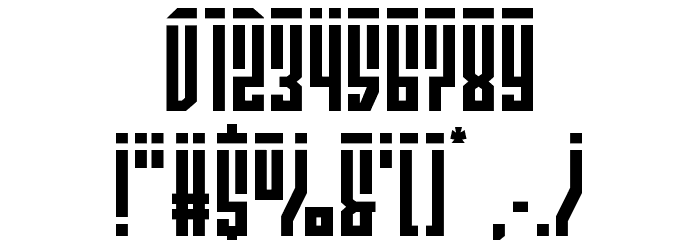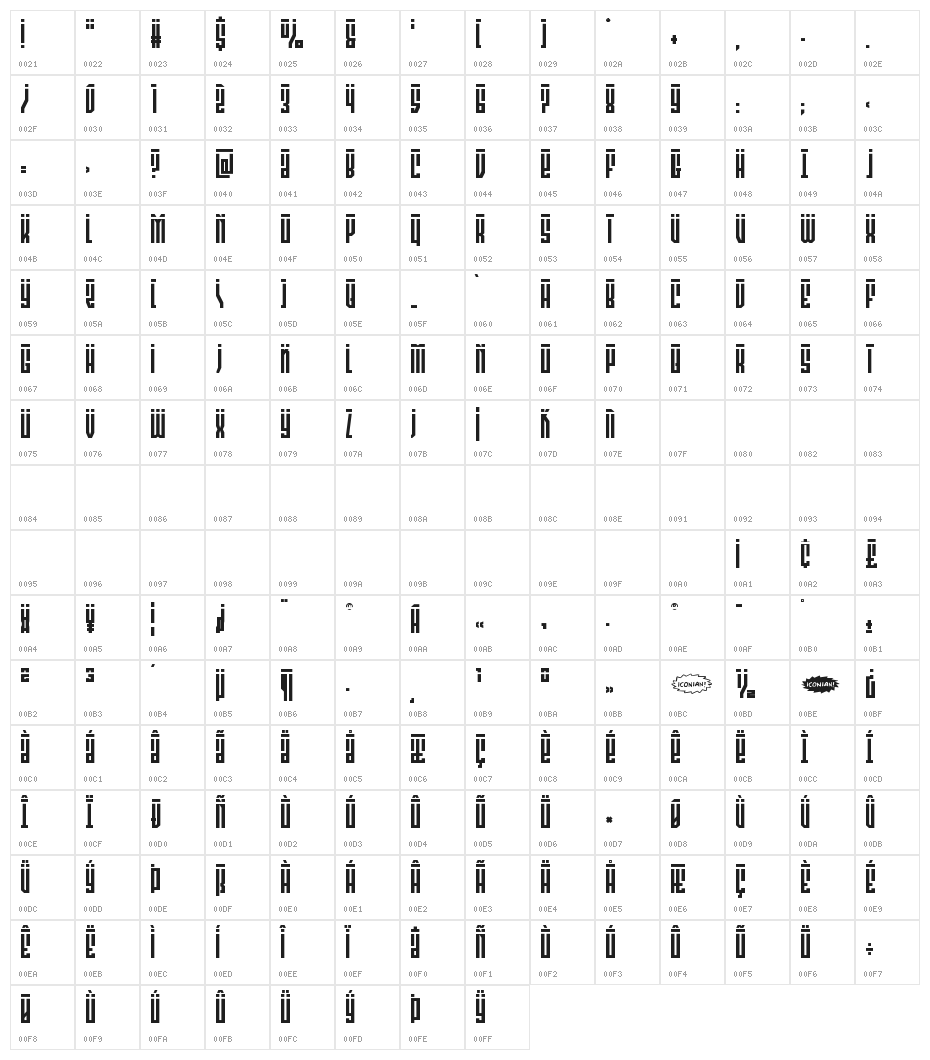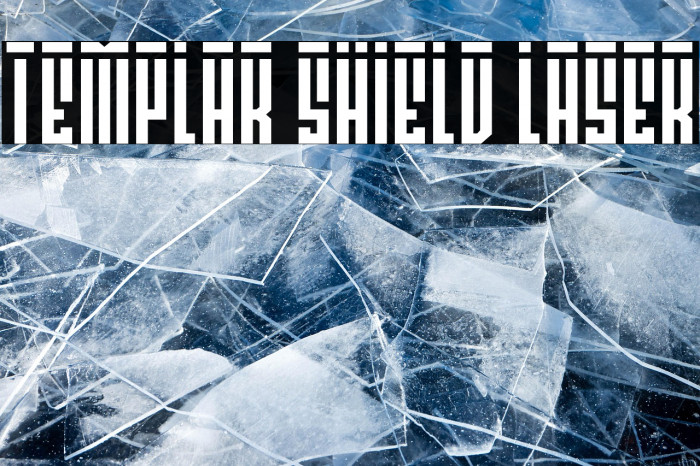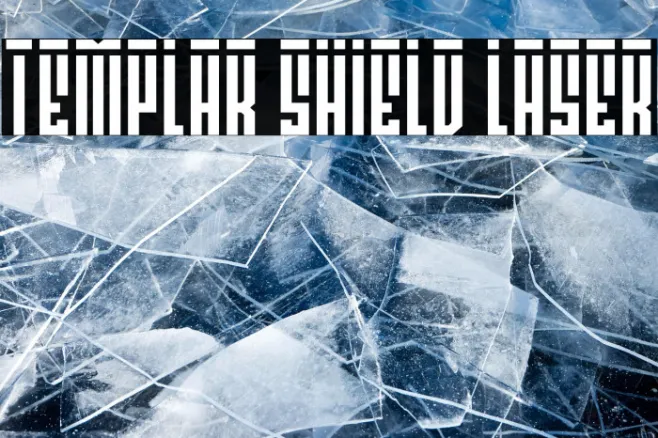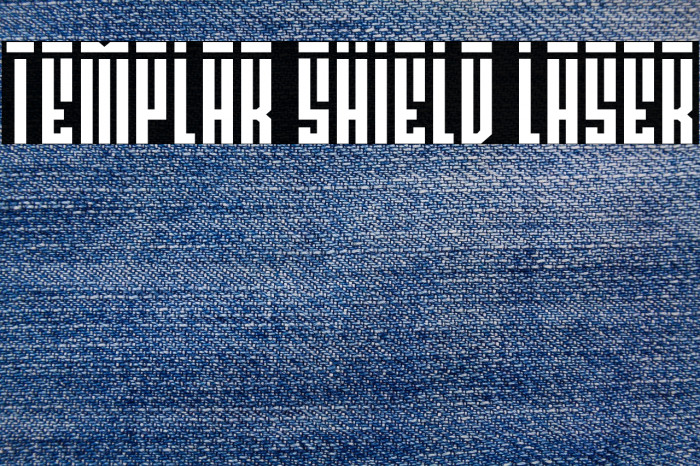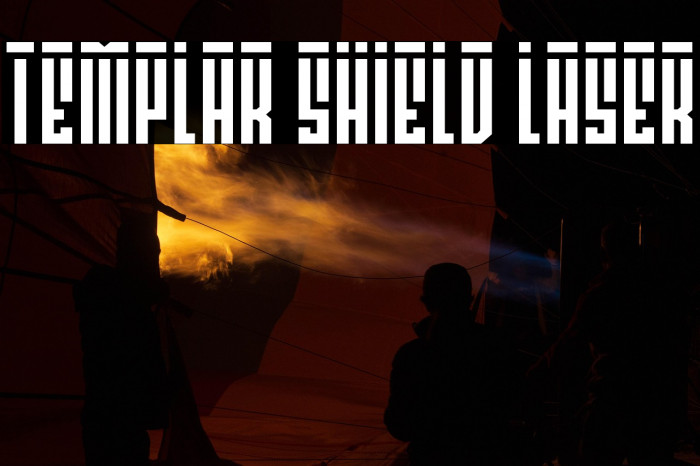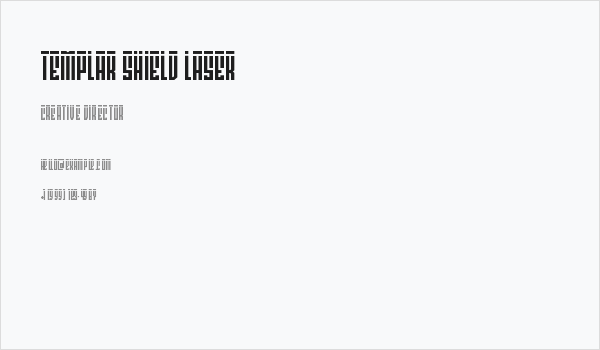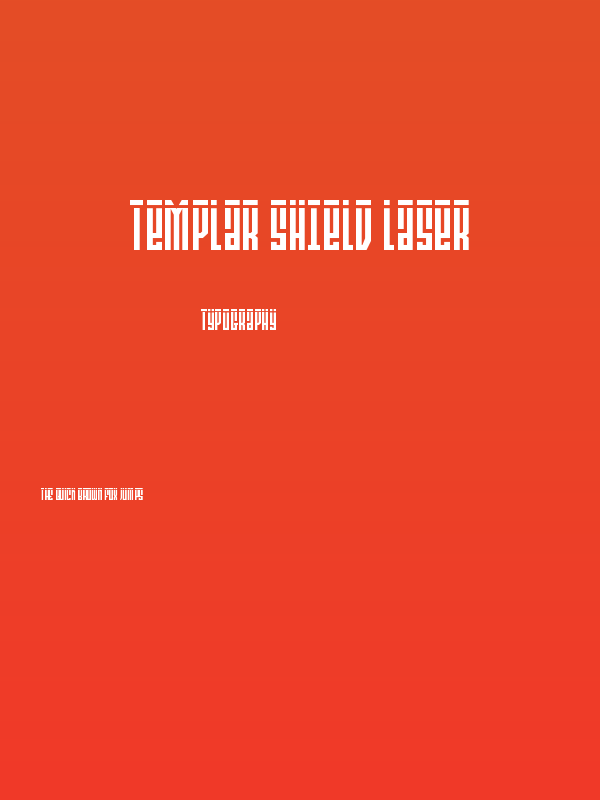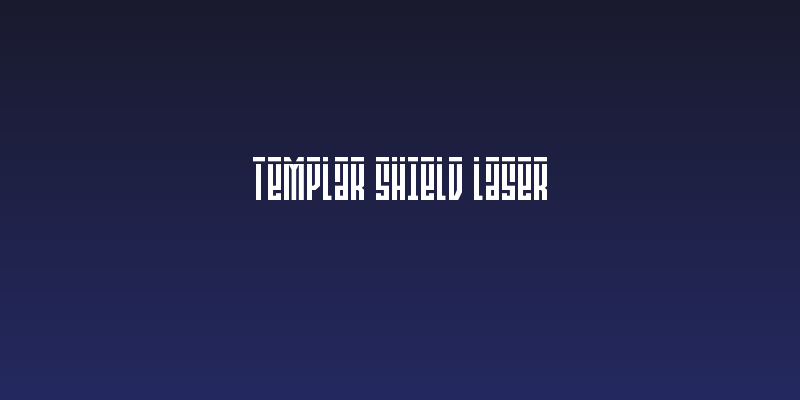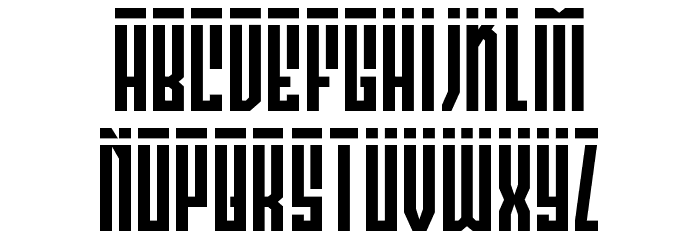
Templar Shield Laser Font
Templar Shield Laser Description
This font features a bold, geometric design with a futuristic and industrial feel. The characters are constructed with sharp angles and straight lines, giving them a rigid and structured appearance. The uppercase and lowercase letters maintain a consistent height, contributing to a uniform look across the typeface. The numerals and special characters follow the same design principles, ensuring cohesion throughout. The font's distinct style makes it suitable for projects that require a modern and edgy aesthetic.
| Proposed Projects | Ideal for sci-fi themed designs, video game titles, posters, and branding that requires a modern, edgy look. |